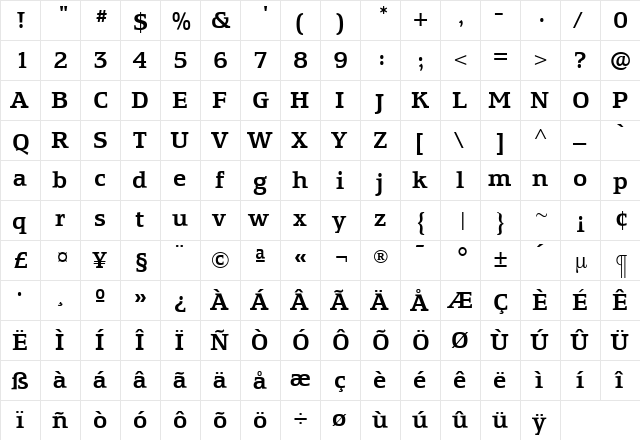
EquestrienneMedium Roman Font Preview
EquestrienneMedium Roman
Design Context for EquestrienneMedium Typeface
EquestrienneMedium takes a measured approach to typography — its balanced proportions and neutral character make it a reliable workhorse for both digital and print work.